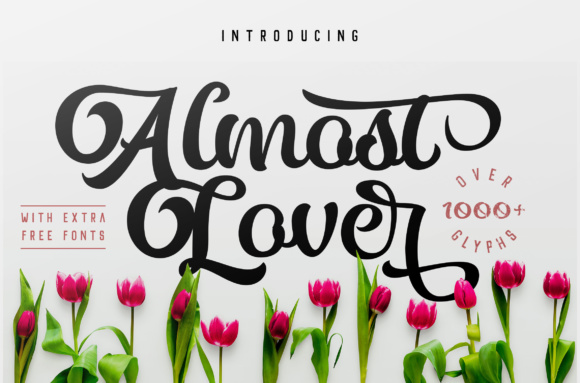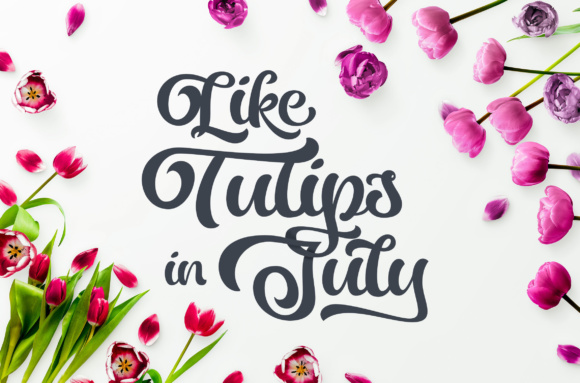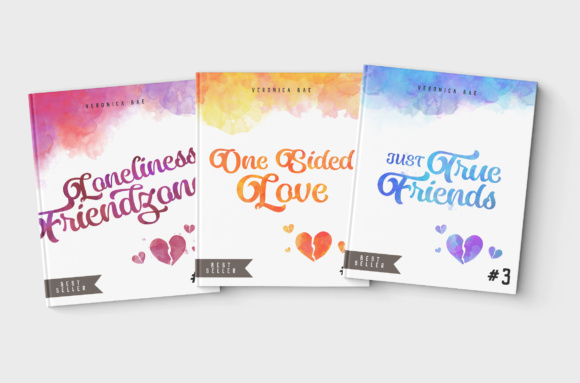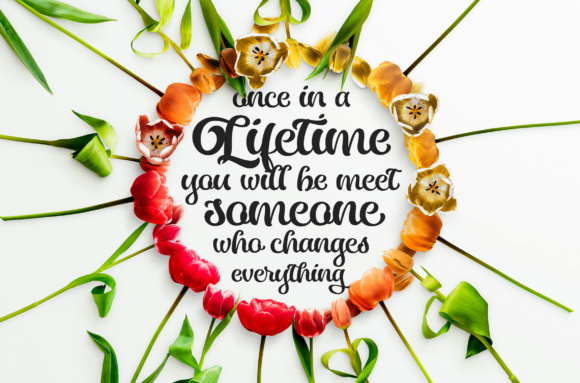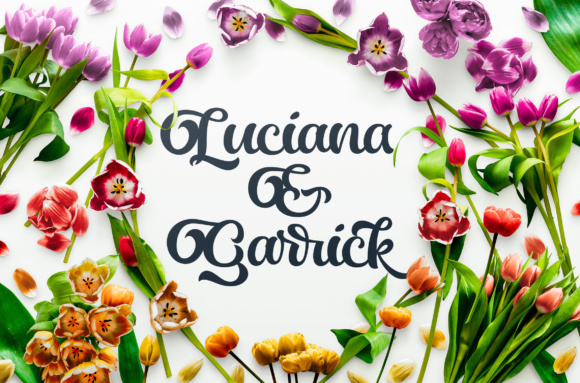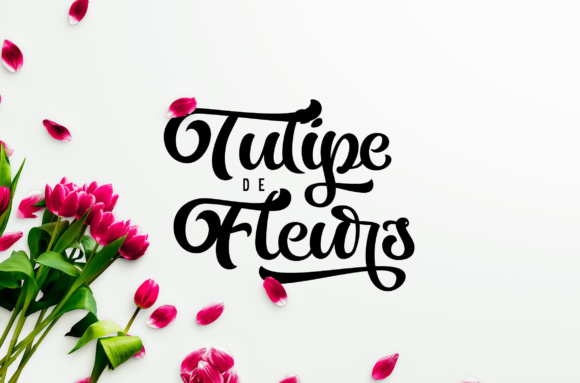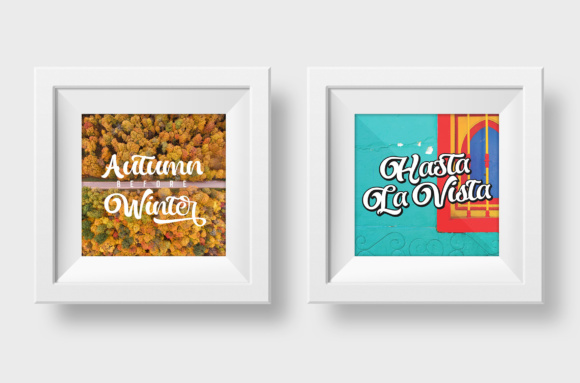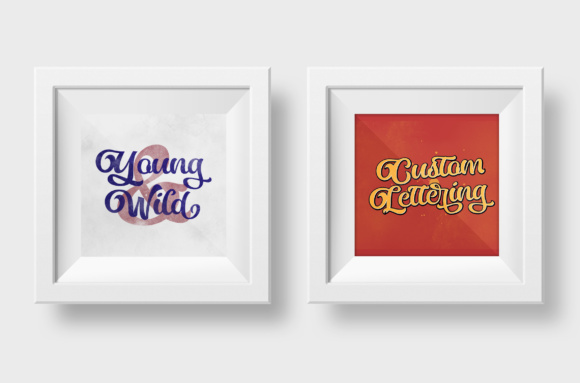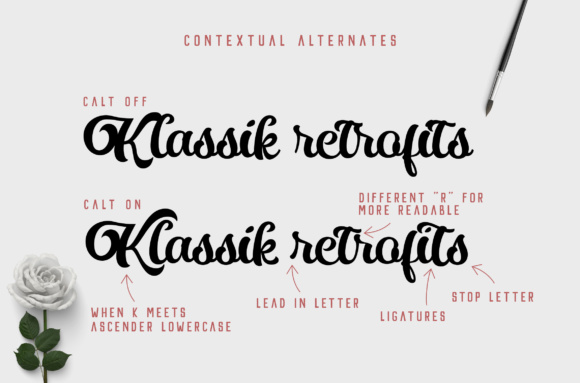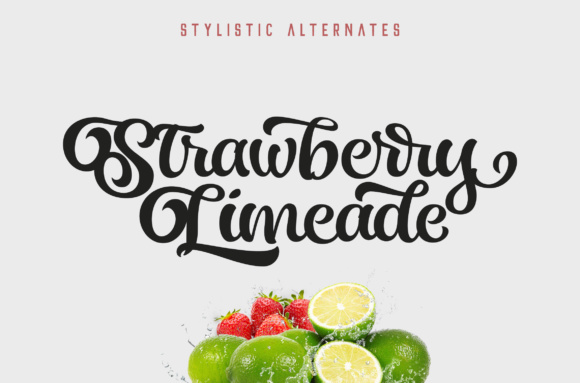
Almost Lover Font
About Almost Lover Font
Almost Lover, a calligraphy font that exudes boldness and bounce, stands as a perfect choice for captivating displays and headlines. This font not only commands attention but also carries a romantic vibe, adding a touch of passion to your typographic expressions. Its distinctive curves and dynamic strokes give your text a lively, expressive quality that can uplift the overall aesthetic of your designs.
Designed with careful consideration for romantic themes, Almost Lover captures the essence of emotion in its letterforms. The flowing, cursive strokes contribute to a sense of fluidity, making it ideal for projects that demand a touch of elegance and intimacy. Whether you’re working on wedding invitations, love-themed displays, or any project that requires a romantic flair, Almost Lover is the go-to font to infuse your text with a heartfelt sentiment.
What sets this font apart is not just its boldness but also its thoughtful inclusion of a complementary font. This feature allows you to create seamless typographic pairings, ensuring versatility in your design projects. The complementary font harmonizes with Almost Lover, providing flexibility for various applications and allowing you to experiment with different visual styles.
Imagine Almost Lover gracing the headlines of a romantic novel, a heartfelt greeting card, or an enchanting poster. Its ability to convey emotion through its design makes it a powerful tool for designers seeking to evoke feelings of love, warmth, and tenderness. The bouncy and bold nature of the font adds a playful element, making it suitable for a range of creative projects that require a balance of romance and liveliness.
In summary, Almost Lover is more than just a calligraphy font; it’s a romantic storyteller that breathes life into your typographic compositions. Its bold and bouncy characteristics, coupled with a complementary font, make it a versatile choice for displays and headlines that demand both attention and a touch of romance. With Almost Lover, your projects can beautifully convey the emotions you intend, creating a lasting impact on your audience.